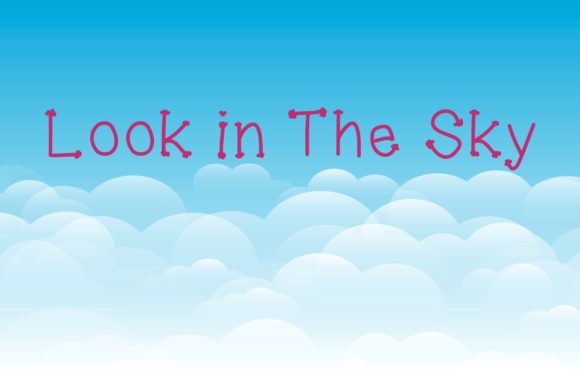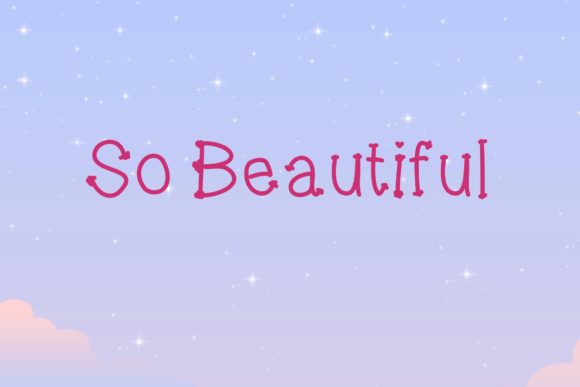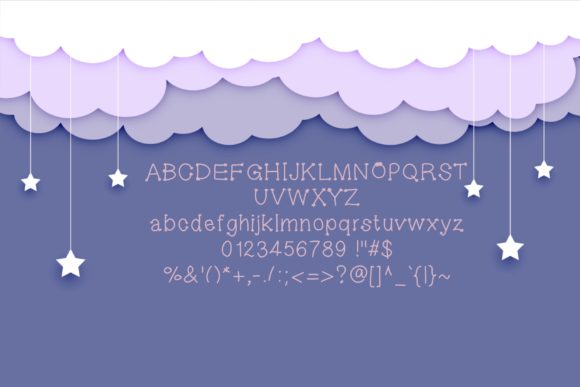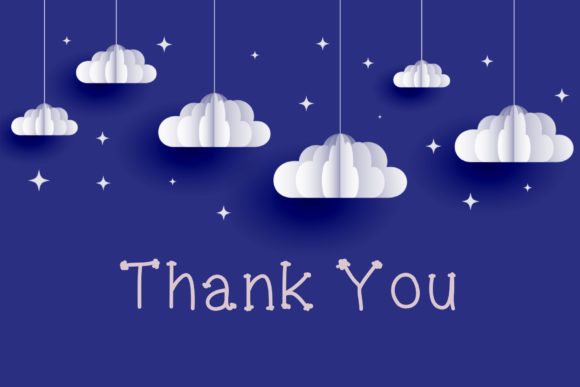
Introducing Cloudy Font: The Sweet and Friendly Handwritten Font
Are you tired of using the same old fonts in your designs? Look no further! Cloudy Font is here to add a touch of sweetness and friendliness to your creations. This beautiful handwritten font is perfect for designers and crafters who want to add a personal touch to their work.
What Makes Cloudy Font Special?
Cloudy Font is a unique and natural font that can be used in a wide range of designs. Its sweet and friendly style makes it perfect for projects that require a personal touch. Whether you’re designing a logo, creating a social media graphic, or crafting a handmade card, Cloudy Font is the perfect choice.
The Characteristics of Cloudy Font
Cloudy Font has a number of characteristics that make it stand out from other fonts. Here are a few:
- Handwritten style: Cloudy Font is a handwritten font, which gives it a personal and unique touch.
- Natural look: The font has a natural look that makes it perfect for designs that require a organic feel.
- Unique style: Cloudy Font has a one-of-a-kind style that will set your designs apart from the rest.
- Versatile: The font can be used in a wide range of designs, from logos and graphics to cards and invitations.
How to Use Cloudy Font in Your Designs
Cloudy Font is incredibly easy to use, and can be incorporated into your designs in a variety of ways. Here are a few ideas:
- Logos and branding: Use Cloudy Font to create a unique and memorable logo for your business or brand.
- Social media graphics: Add a personal touch to your social media graphics with Cloudy Font.
- Handmade cards and invitations: Use Cloudy Font to create beautiful and unique handmade cards and invitations.
- Digital art: Incorporate Cloudy Font into your digital art projects for a personal touch.
Tips for Getting the Most Out of Cloudy Font
Here are a few tips for getting the most out of Cloudy Font:
- Experiment with different colors: Cloudy Font looks great in a variety of colors, so don’t be afraid to experiment and find the perfect hue for your design.
- Play with font sizes: Cloudy Font can be used in a range of font sizes, from large and bold to small and delicate.
- Combine with other fonts: Cloudy Font pairs well with a variety of other fonts, so feel free to get creative and combine it with other fonts for a unique look.
Cloudy Font is a sweet and friendly handwritten font that is perfect for designers and crafters who want to add a personal touch to their work. Its natural and unique style makes it incredibly versatile, and it can be used in a wide range of designs. With its ease of use and flexibility, Cloudy Font is a great addition to any designer’s toolkit.